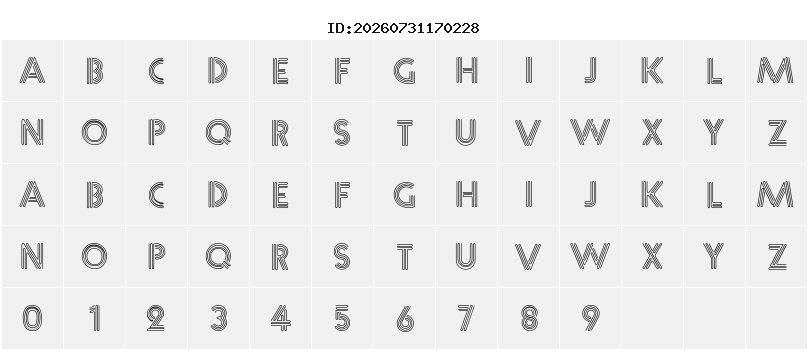
Leonde Preview
• Font Name: Leonde
About Leonde.ttf
Leonde.ttf is a modern, elegant sans-serif font designed for ultimate readability and visual harmony. Perfect for branding, headlines, web design, and print materials.